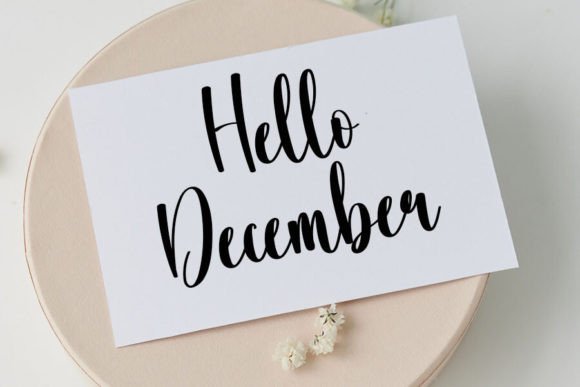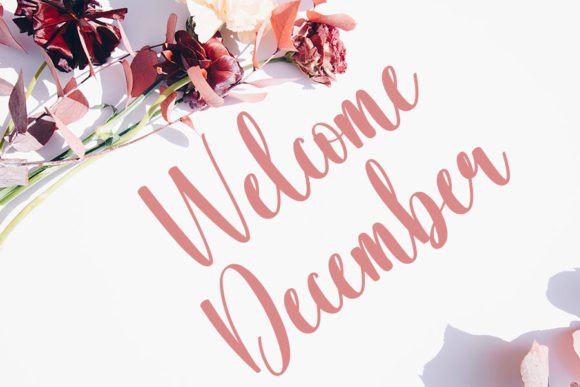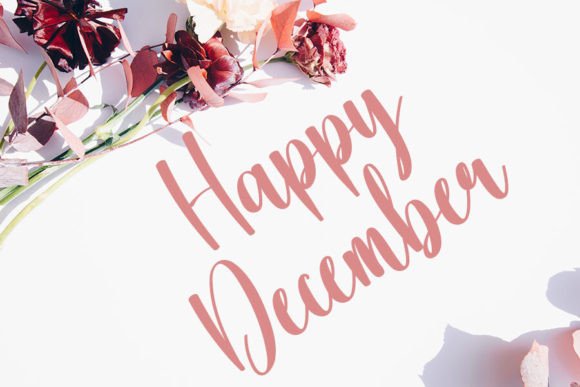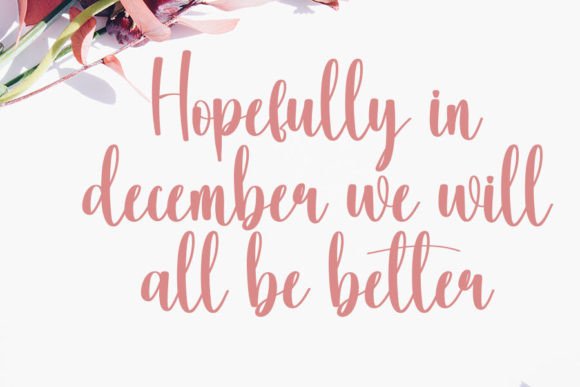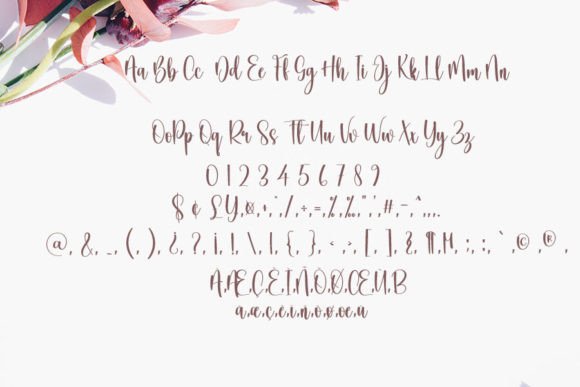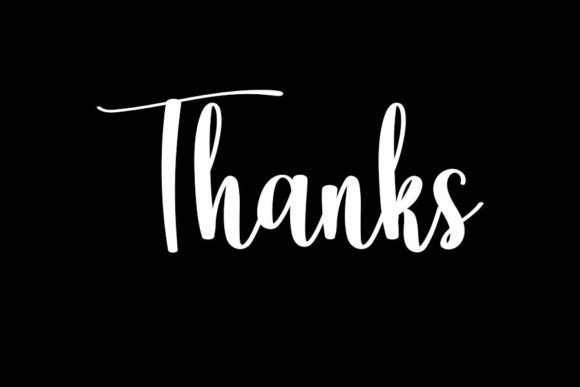
Introducing December Font: Elevate Your Designs with Elegance
Are you on the hunt for a font that adds a touch of sophistication and charm to your projects? Look no further than the December Font, a stunning handwritten font that embodies elegance and refinement. With its unique and timeless style, this font is sure to capture the hearts of designers and crafters alike.
The Beauty of December Font
December Font is a neat and beautiful handwritten font that boasts an elegant touch, making it perfect for a wide range of projects. Whether you’re working on a logo, branding materials, or digital content, this font is sure to impress. Its incredibly distinct style sets it apart from other fonts, giving your designs a unique and recognizable flair.
One of the standout features of December Font is its timeless quality. Unlike trendy fonts that quickly go out of style, December Font’s classic appeal ensures that your designs will remain stylish and relevant for years to come. This makes it an excellent choice for projects that require a long-term visual identity.
December Font’s versatility is one of its greatest strengths. Its elegant and refined style makes it suitable for a wide range of projects, including:
- Branding and Logo Design: Create a lasting impression with a custom logo that showcases your brand’s personality and style.
- Digital Content: Elevate your blog posts, social media graphics, and website content with a sophisticated and eye-catching font.
- Stationery and Paper Goods: Add a touch of elegance to your business cards, letterheads, and greeting cards.
- Crafting and DIY Projects: Use December Font to create beautiful and unique titles, headings, and labels for your handmade crafts.
Why Choose December Font?
With so many fonts available, why choose December Font? Here are just a few reasons why designers and crafters love this font:
- Unique Style: December Font’s distinct style sets it apart from other fonts, ensuring that your designs stand out from the crowd.
- Elegant and Refined: This font’s elegant touch adds a touch of sophistication to any project.
- Timeless Appeal: December Font’s classic style ensures that your designs will remain stylish and relevant for years to come.
- Easy to Read: Despite its elegant style, December Font remains easy to read, making it perfect for body text and captions.
Tips for Using December Font
To get the most out of December Font, here are a few tips to keep in mind:
- Pair with Contrasting Fonts: Combine December Font with contrasting fonts to create visual interest and hierarchy.
- Use for Headings and Titles: December Font’s elegant style makes it perfect for headings and titles, adding a touch of sophistication to your designs.
- Experiment with Colors: Try pairing December Font with different colors to create unique and eye-catching designs.
In conclusion, December Font is a beautiful and elegant handwritten font that is perfect for designers and crafters looking to add a touch of sophistication to their projects. With its unique and timeless style, this font is sure to capture the hearts of anyone who sees it. Whether you’re working on a logo, branding materials, or digital content, December Font is an excellent choice. So why wait? Fall in love with December Font and start creating spectacular designs today!